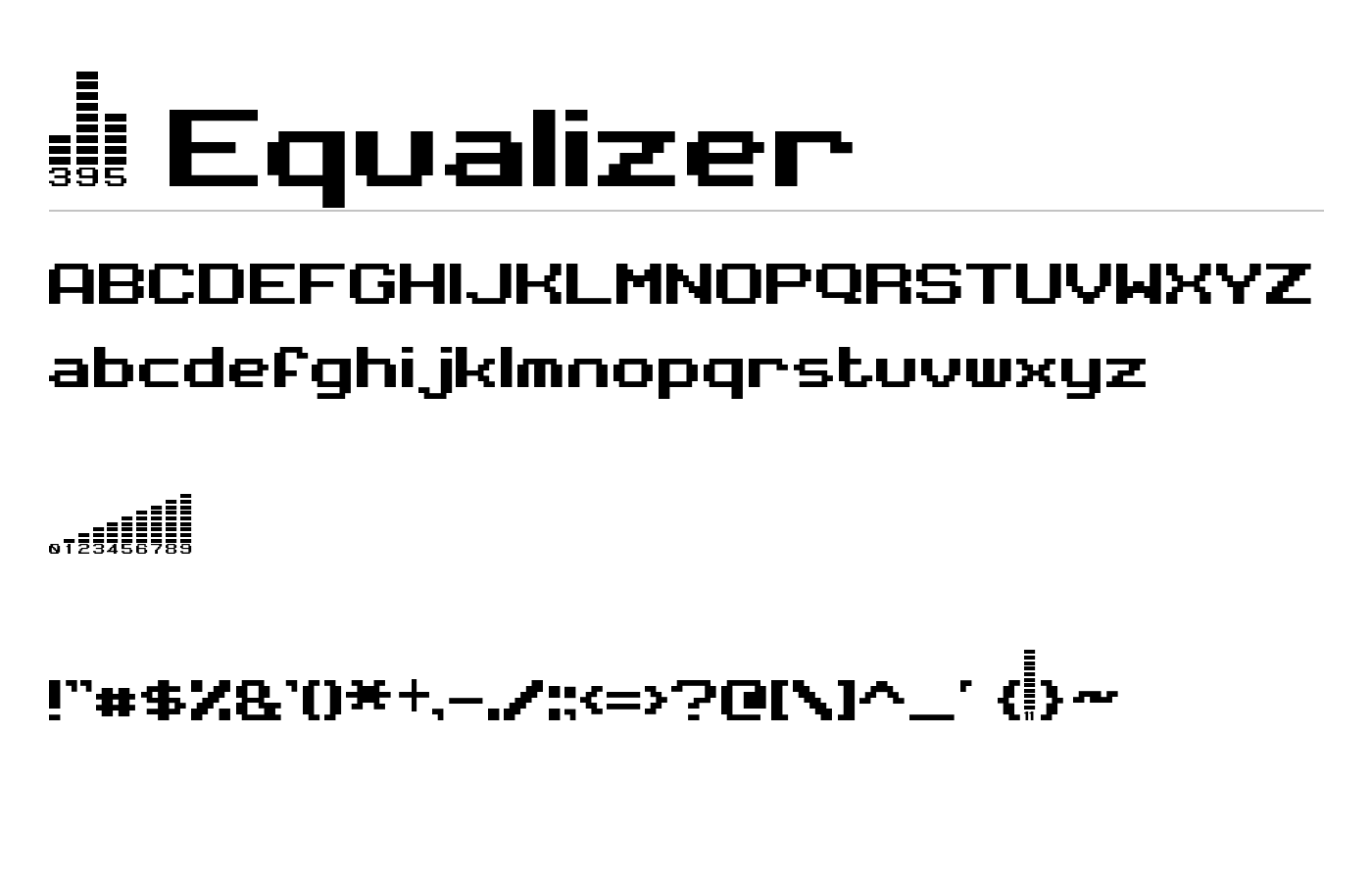
395 Equalizer is a pixelated, geometric sans serif font with a strong digital and retro tech vibe. Its blocky, monospaced letterforms with uniform weight and sharp edges evoke early computer or video game aesthetics, making it ideal for tech-themed designs, gaming interfaces, or nostalgic digital branding. This font works best for headlines, logos, and display text where a bold, futuristic, and pixel-art style is desired.
395 Equalizer Font
About 395 Equalizer Font